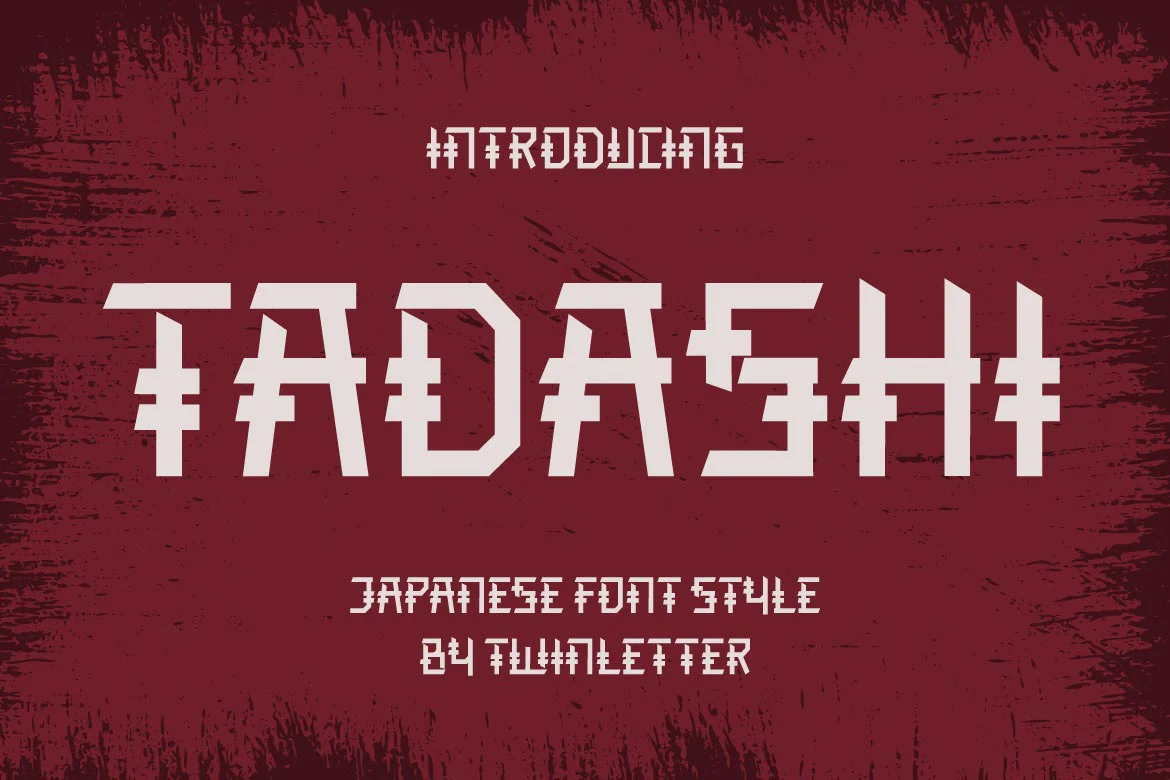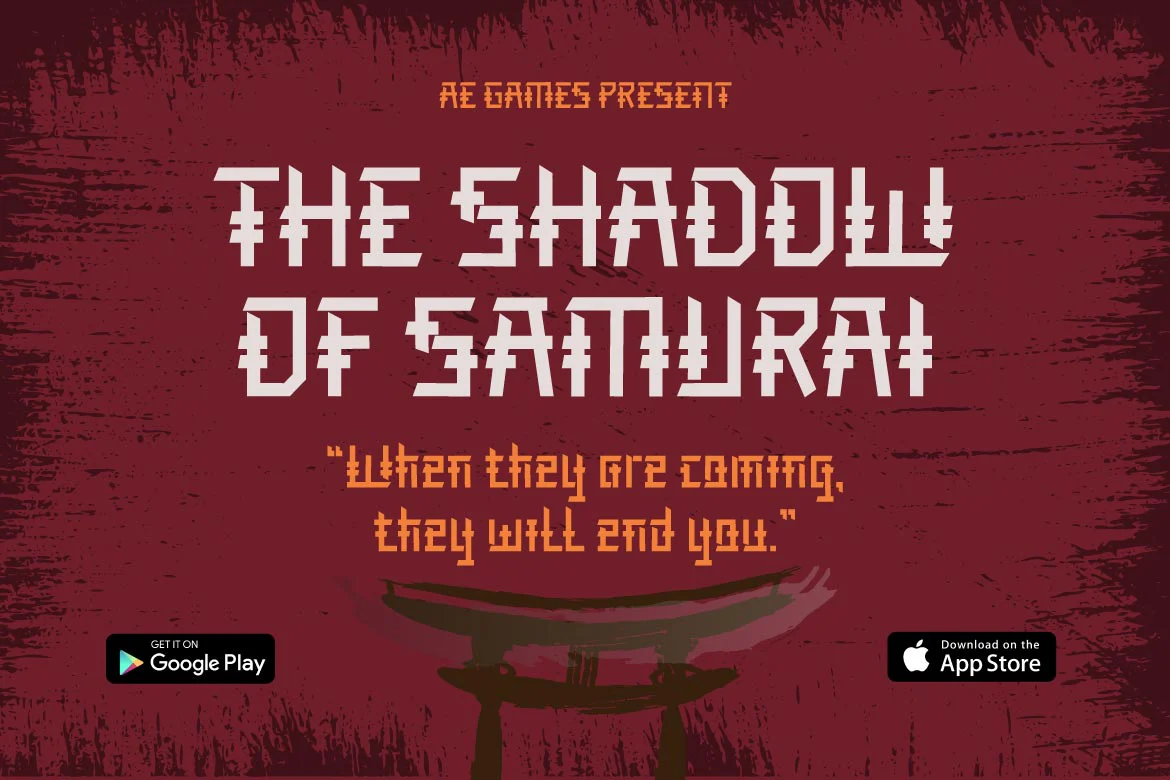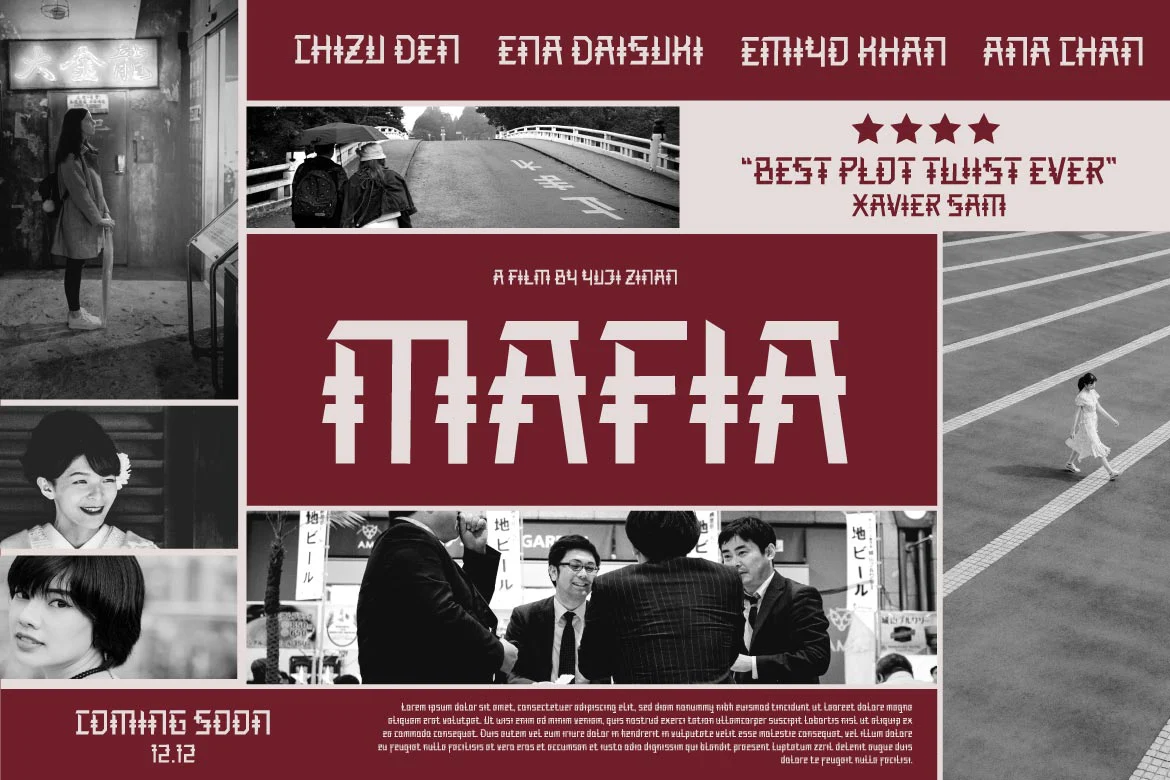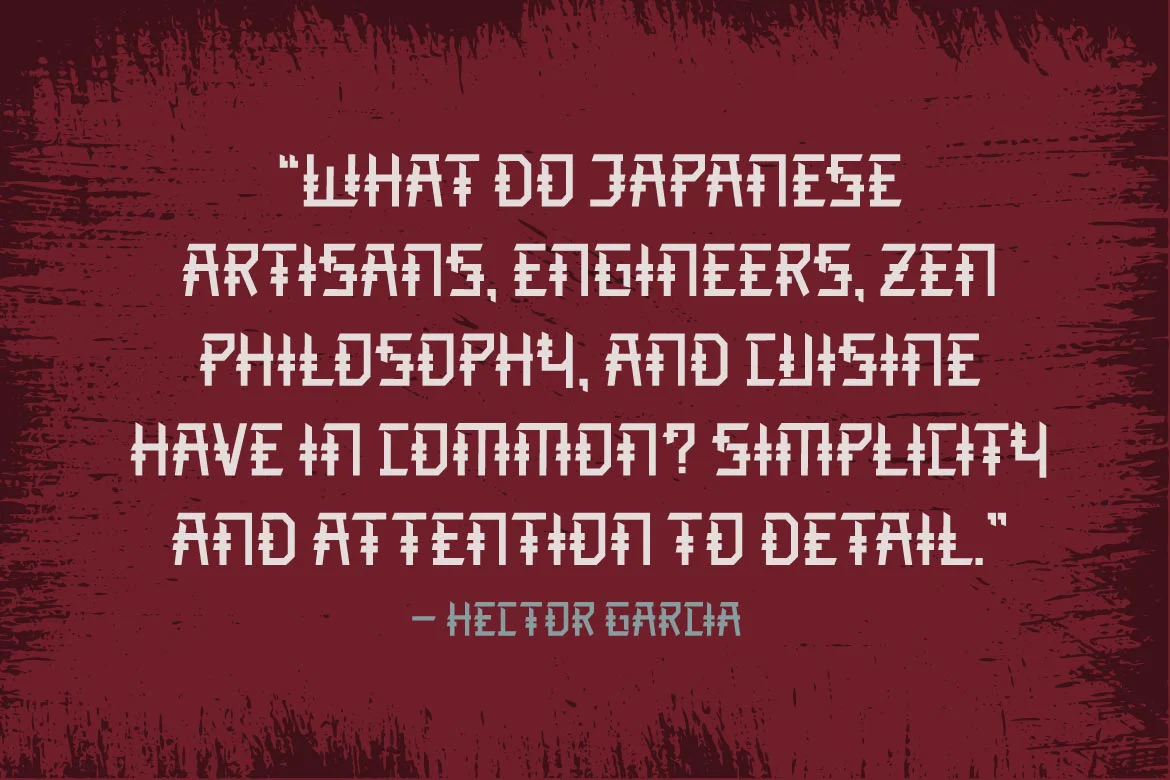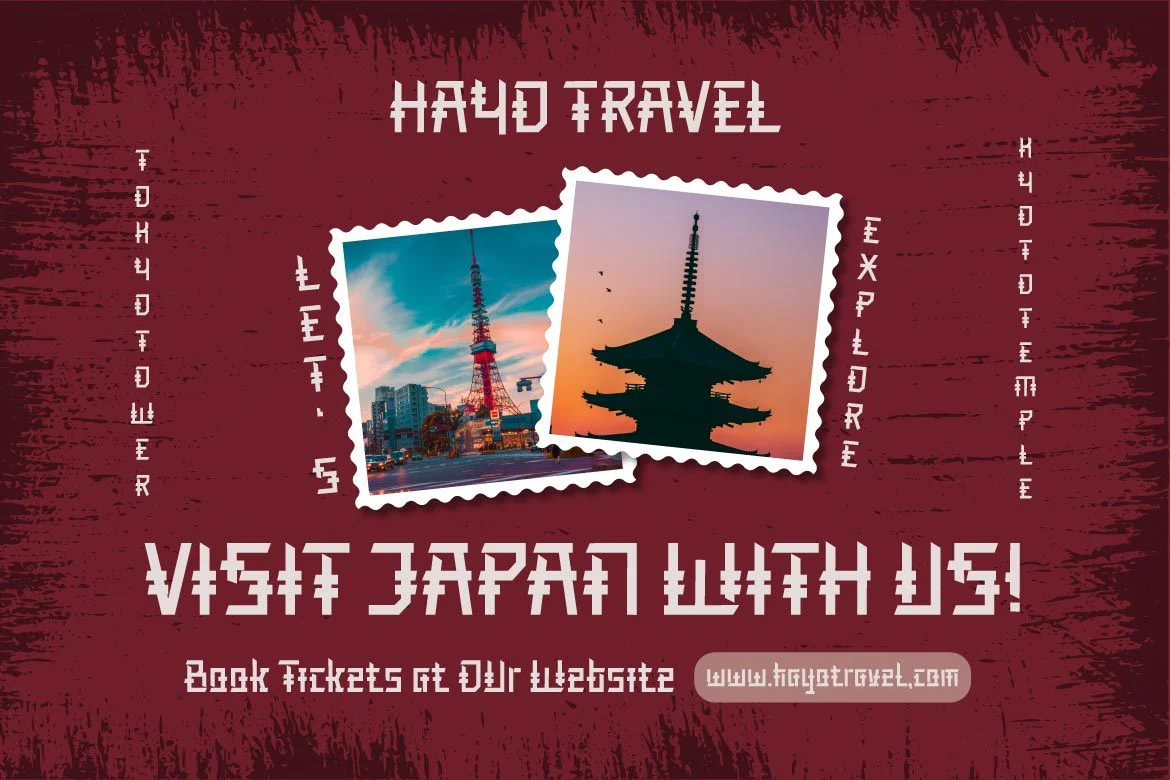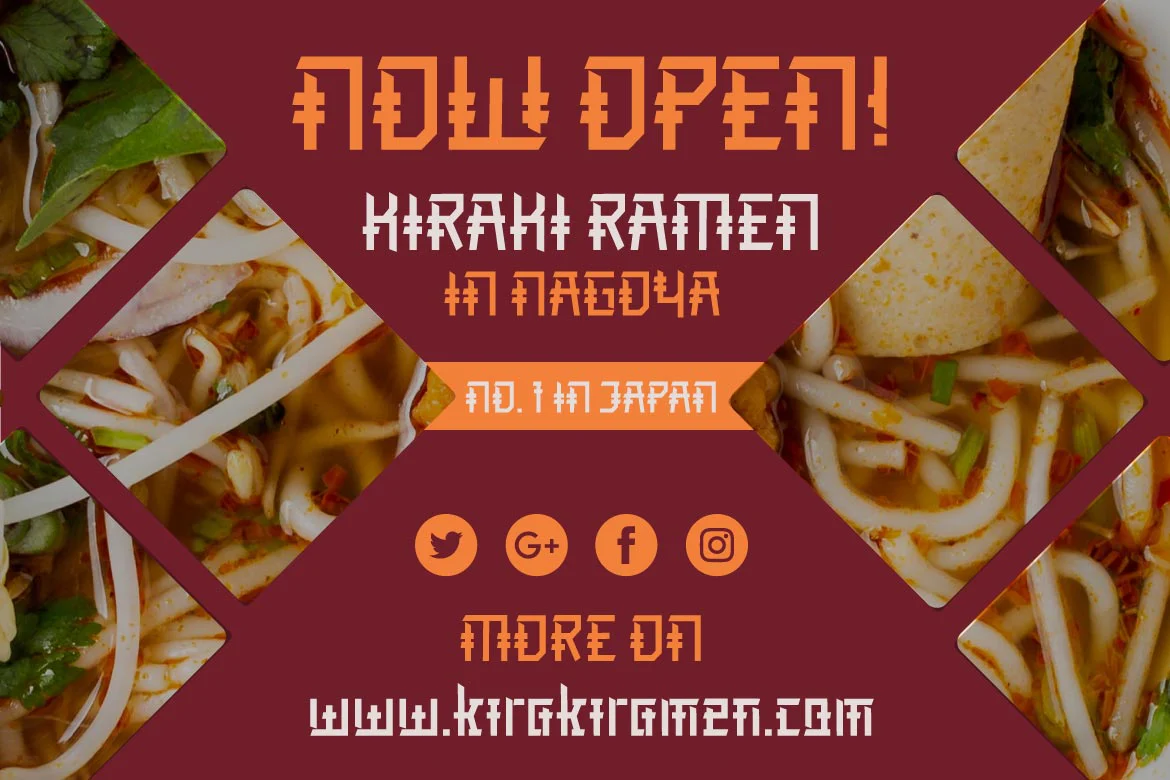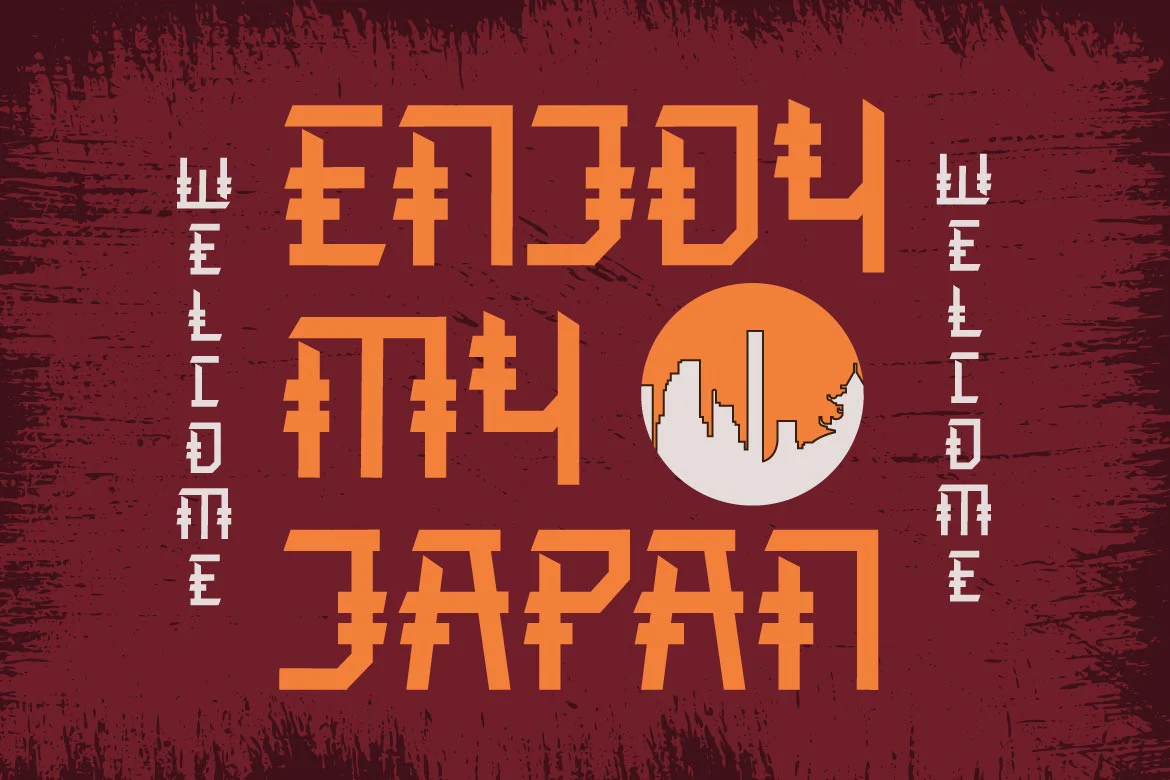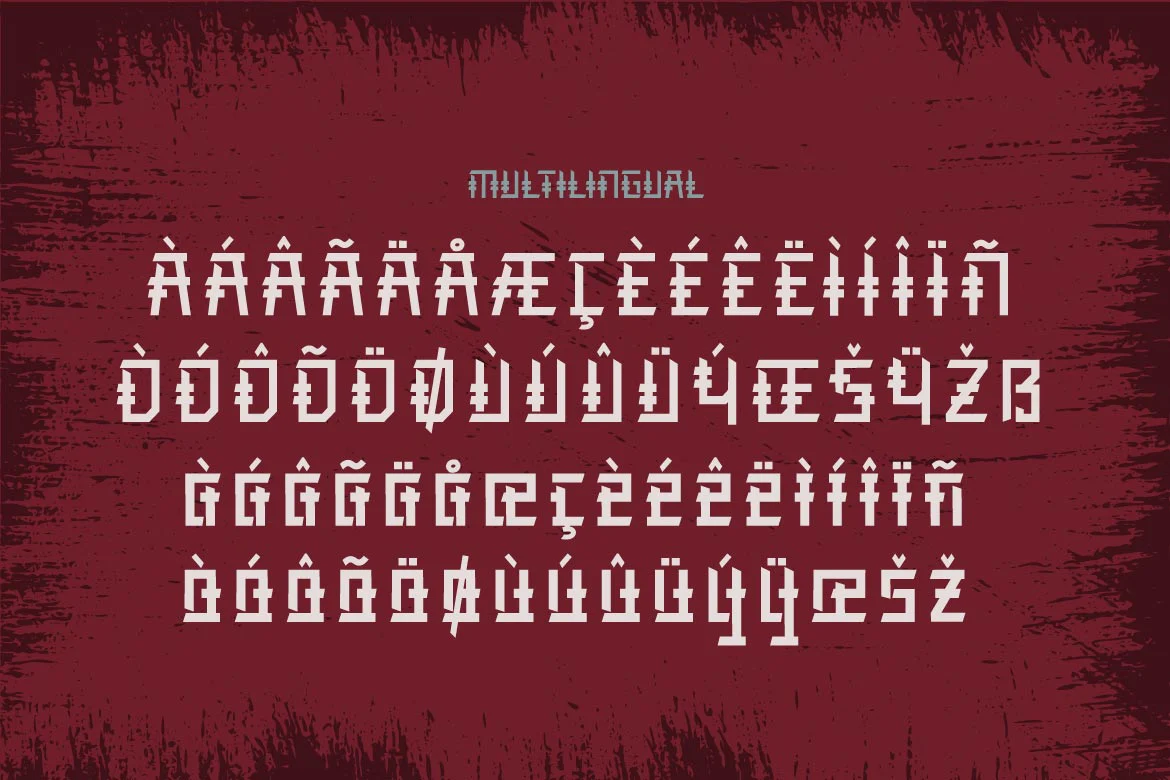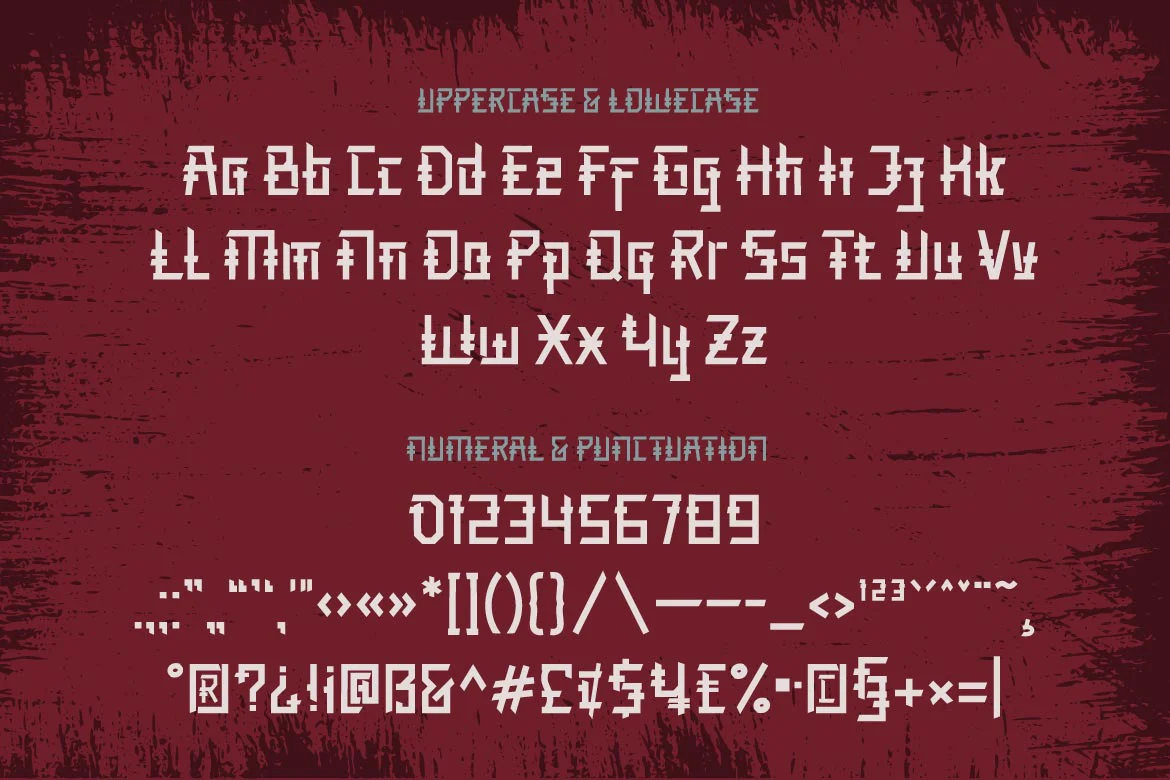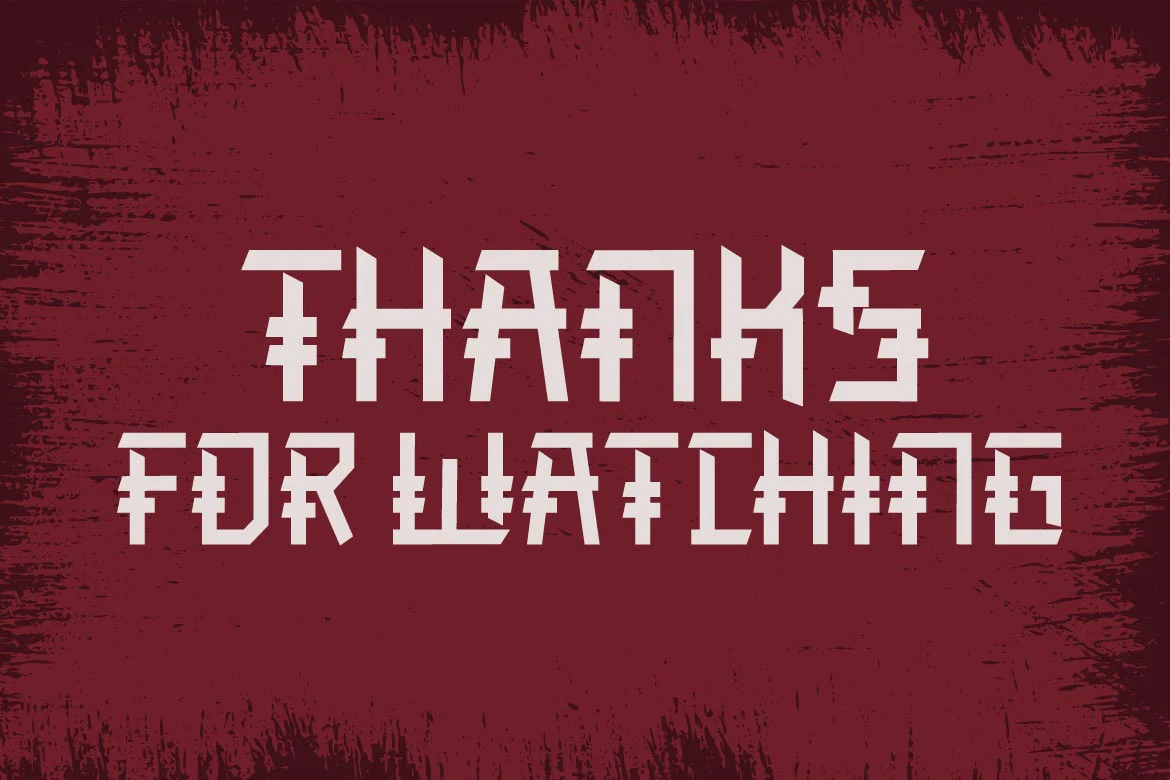
TADASHI Faux Japanese Font
TADASHI is our newest display font, which was created with the goal of enhancing the appearance of your project in terms of theme harmony, distinctiveness, and differentiation, in order to produce an appealing and targeted look.
This typeface is the solution to everything you’ve been searching for and needing.
Logotypes, food banners, branding, brochure, posters, movie titles, book titles, quotes, and more may all benefit from this font.
Of course, using this font in your various design projects will make them excellent and outstanding; many viewers are drawn to the striking and unusual graphic display.
Start utilizing this typeface in your projects to make them stand out.
TADASHI is our newest display font, which was created with the goal of enhancing the appearance of your project in terms of theme harmony, distinctiveness, and differentiation, in order to produce an appealing and targeted look.
This typeface is the solution to everything you’ve been searching for and needing.
Logotypes, food banners, branding, brochure, posters, movie titles, book titles, quotes, and more may all benefit from this font.
Of course, using this font in your various design projects will make them excellent and outstanding; many viewers are drawn to the striking and unusual graphic display.
Start utilizing this typeface in your projects to make them stand out.